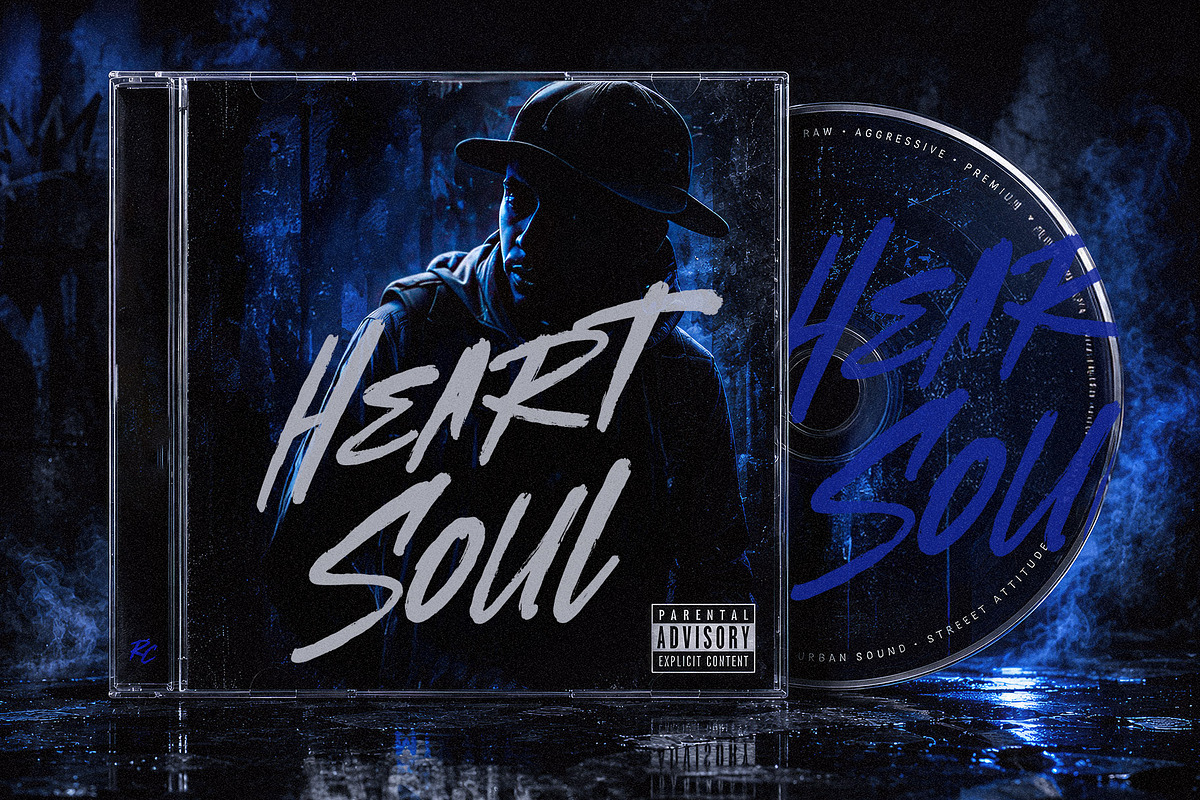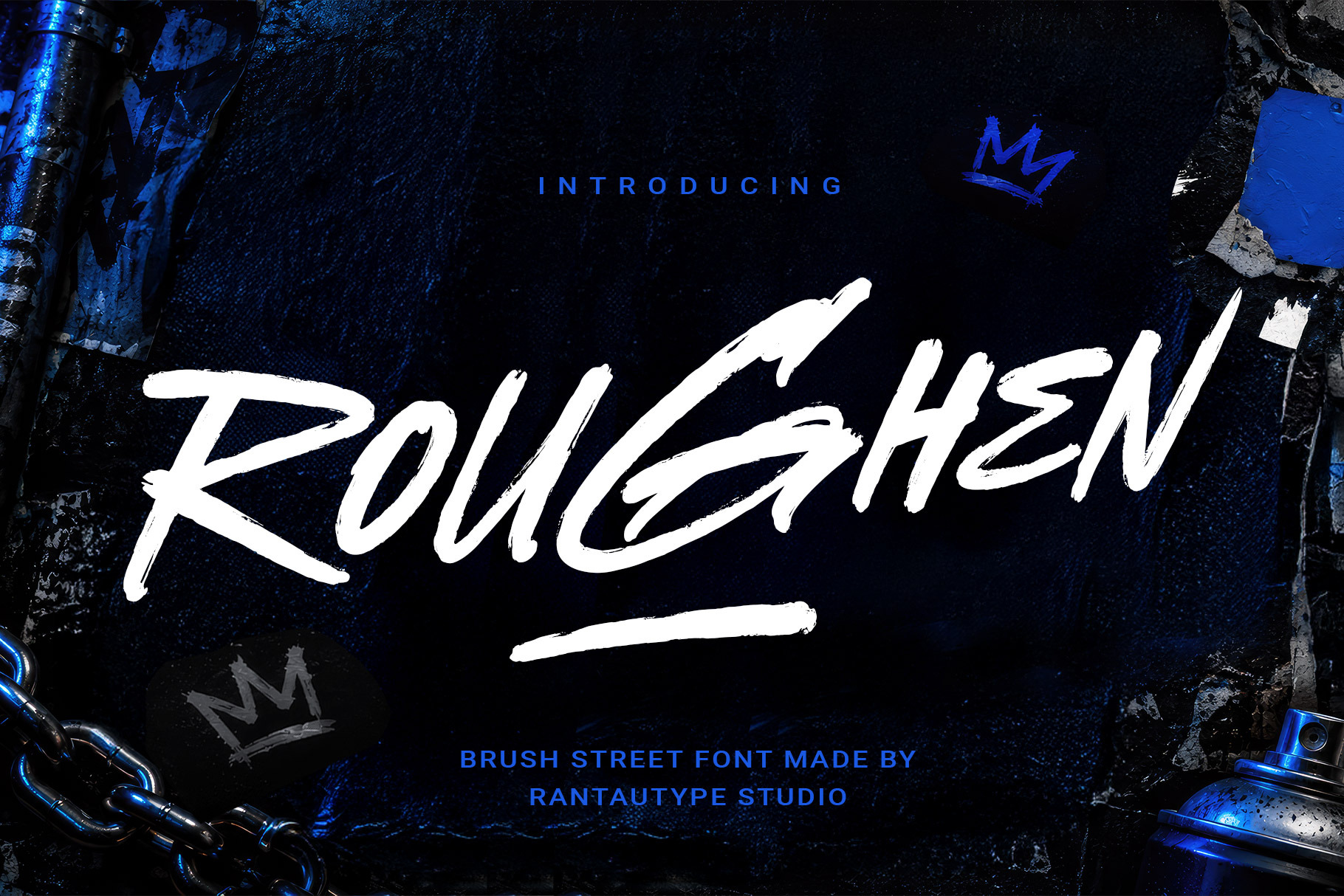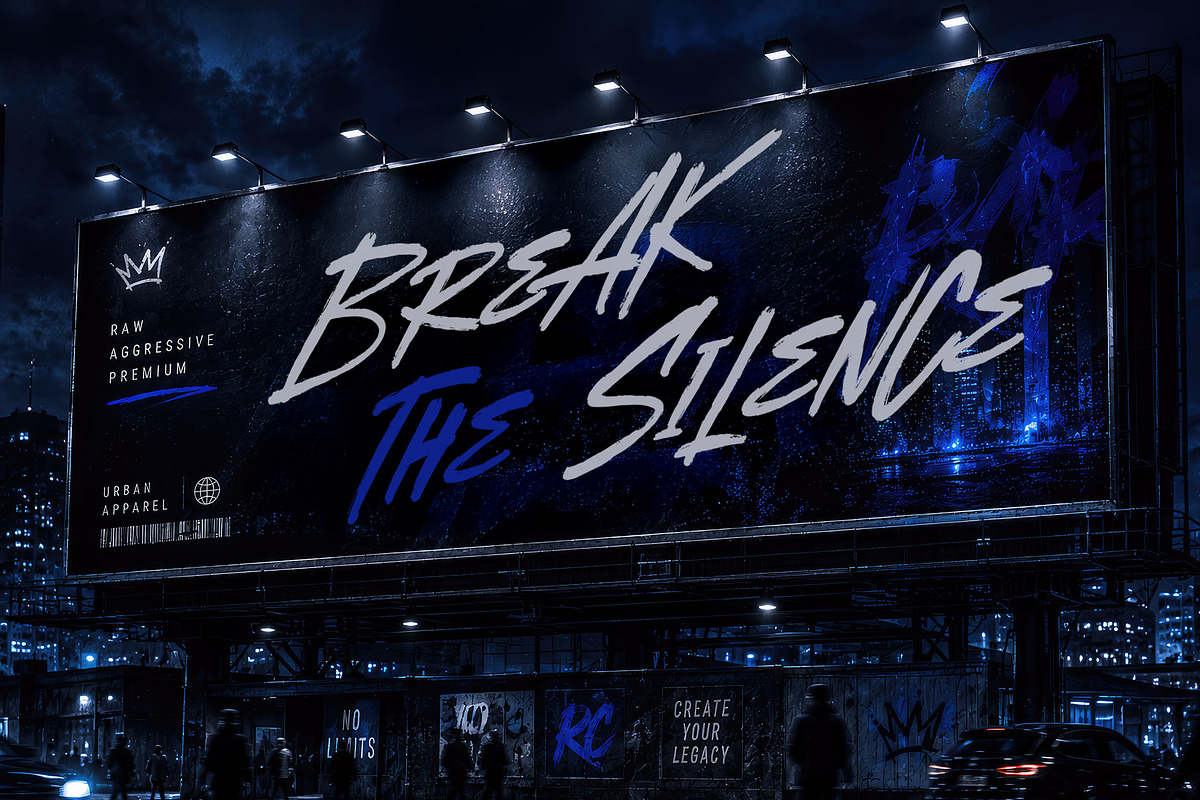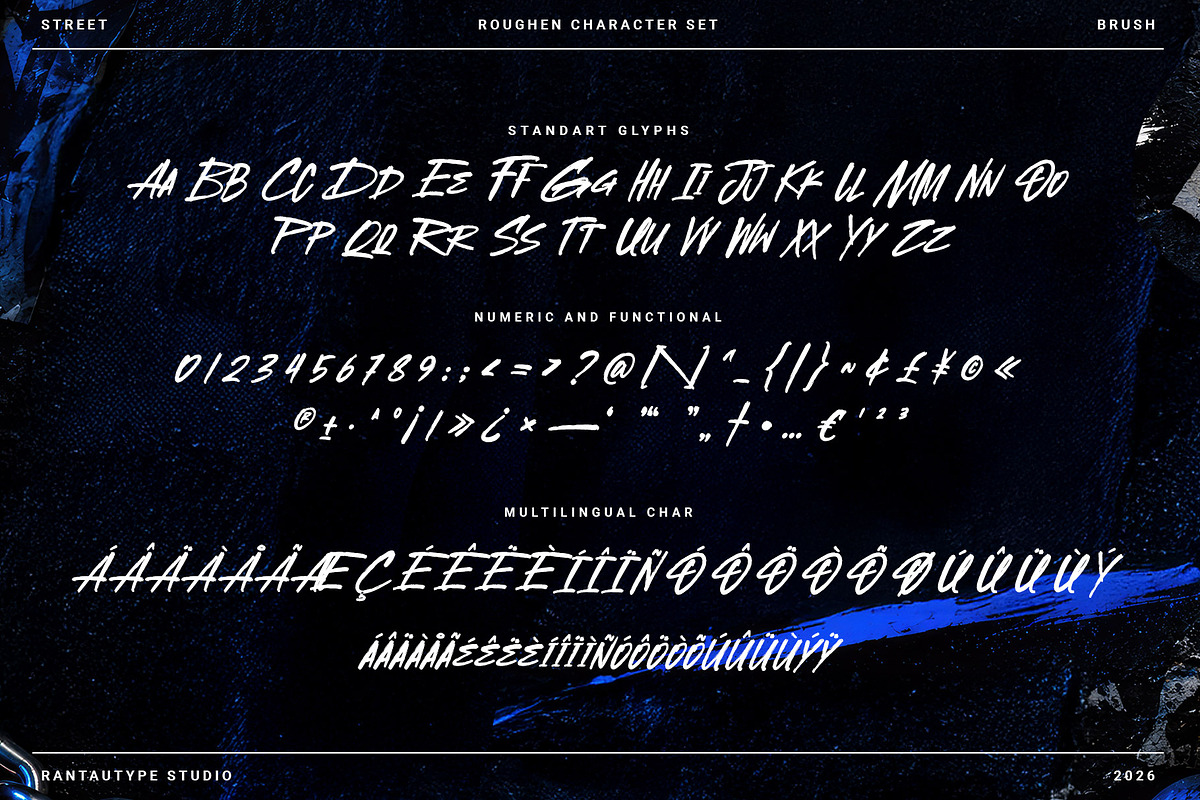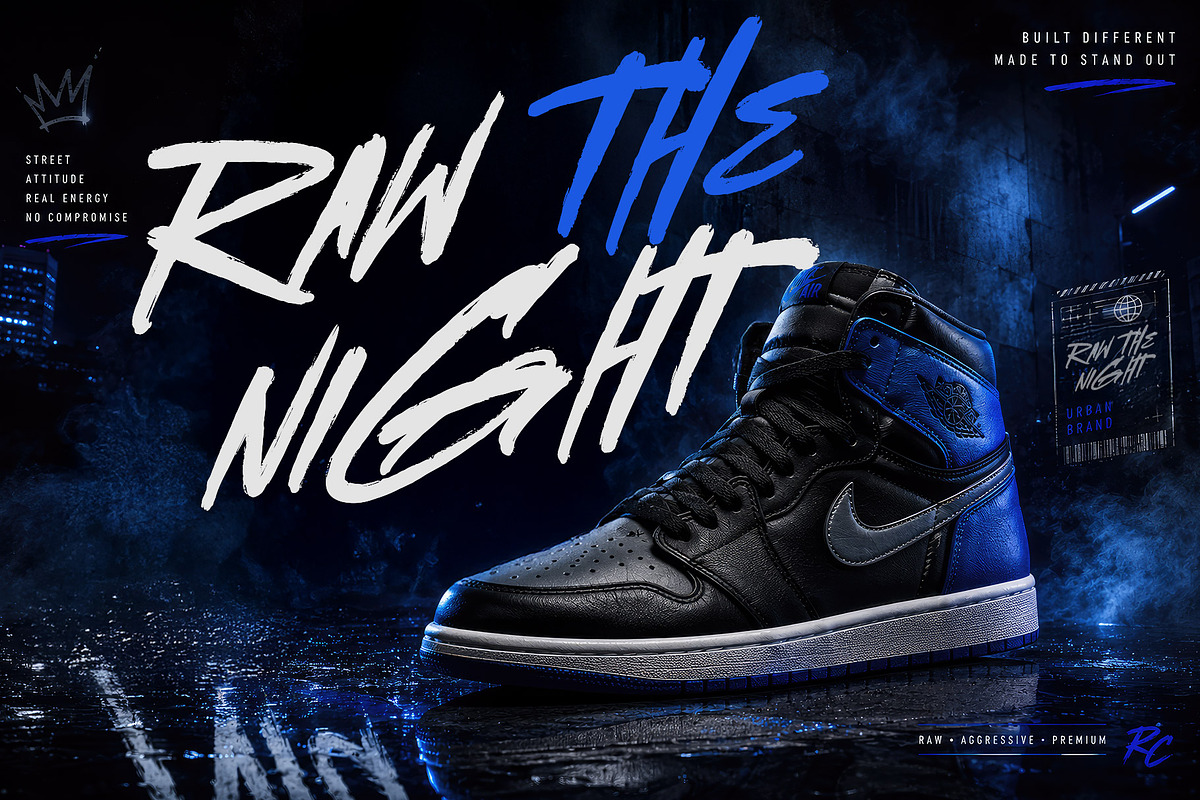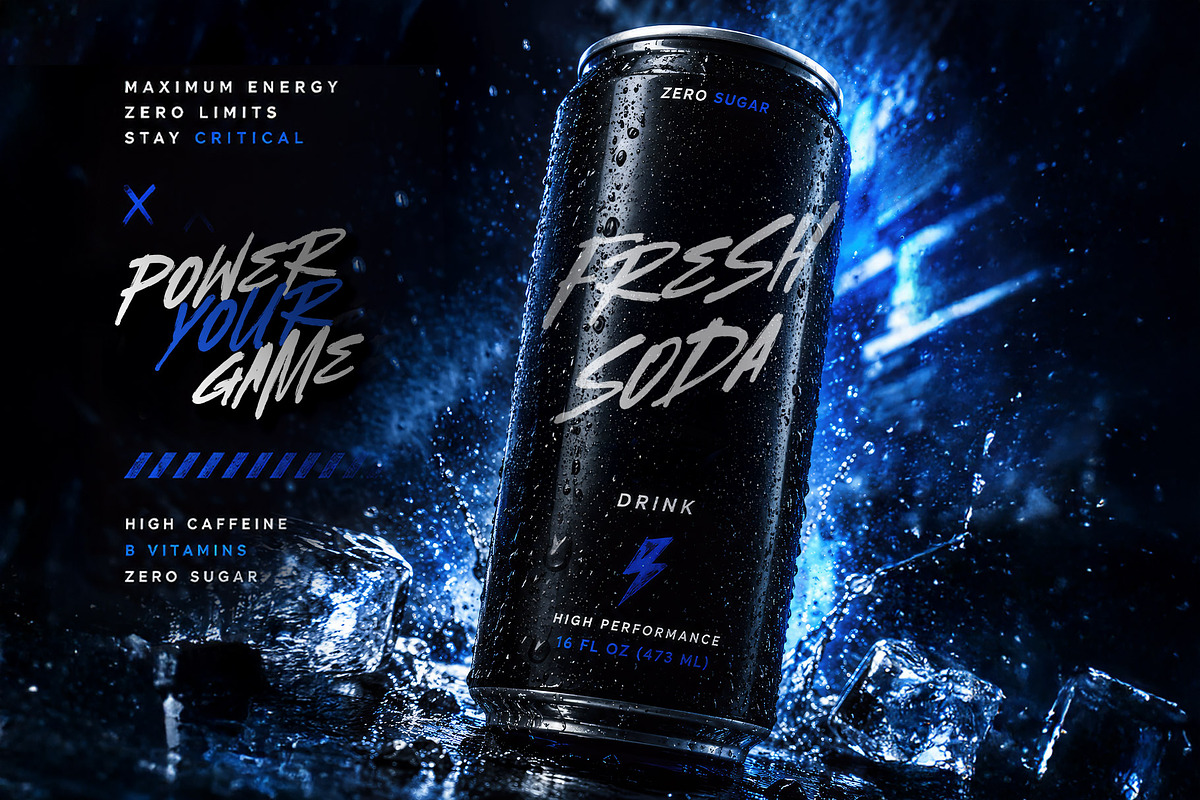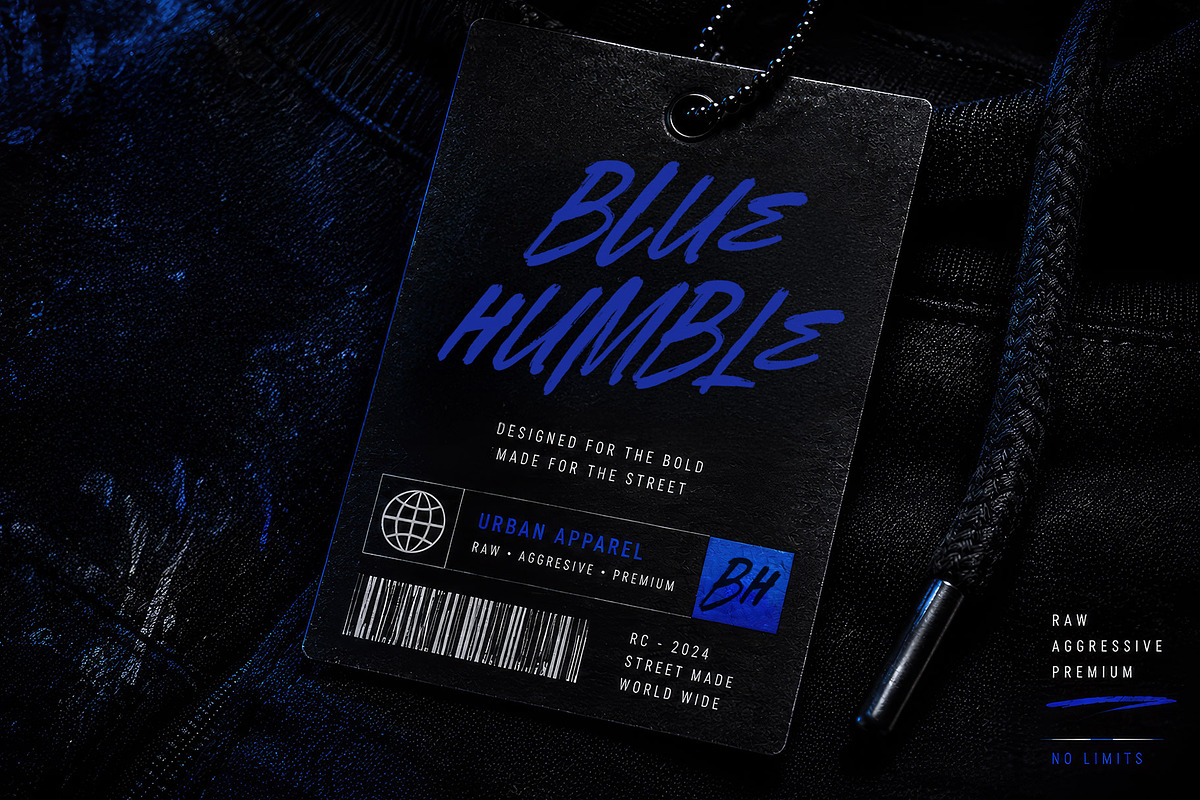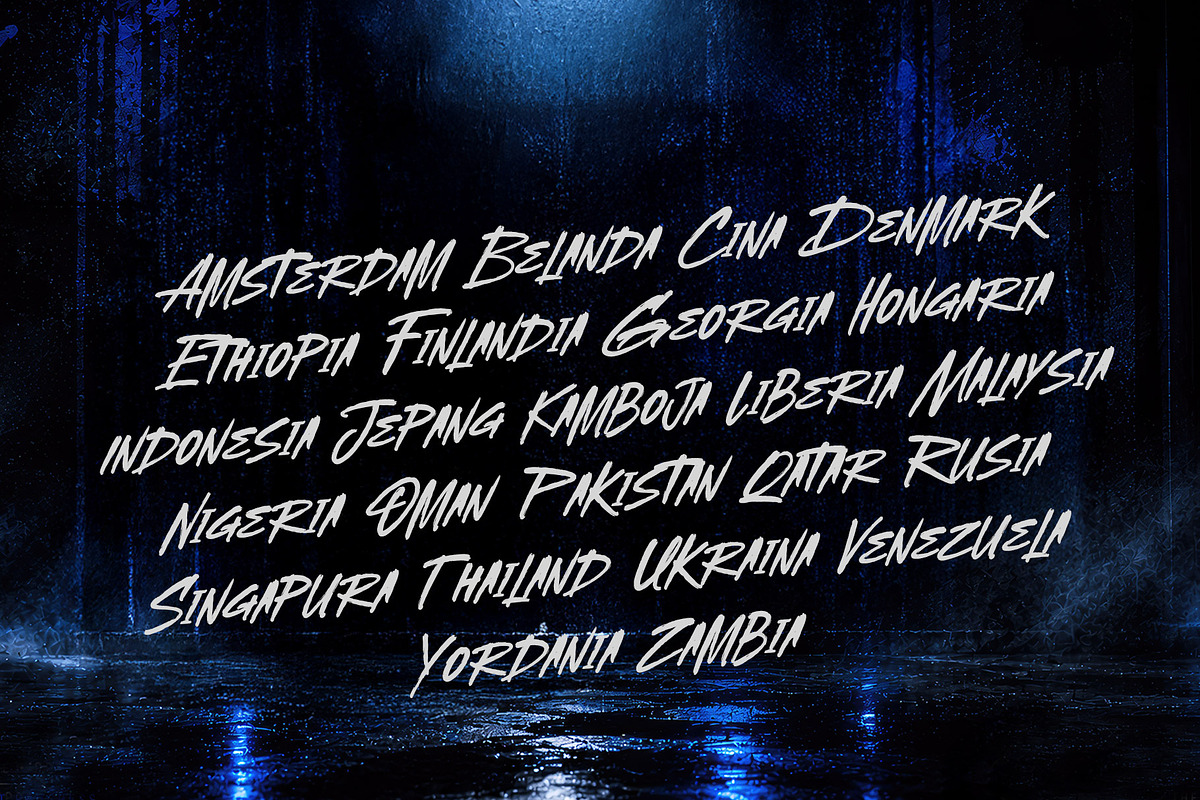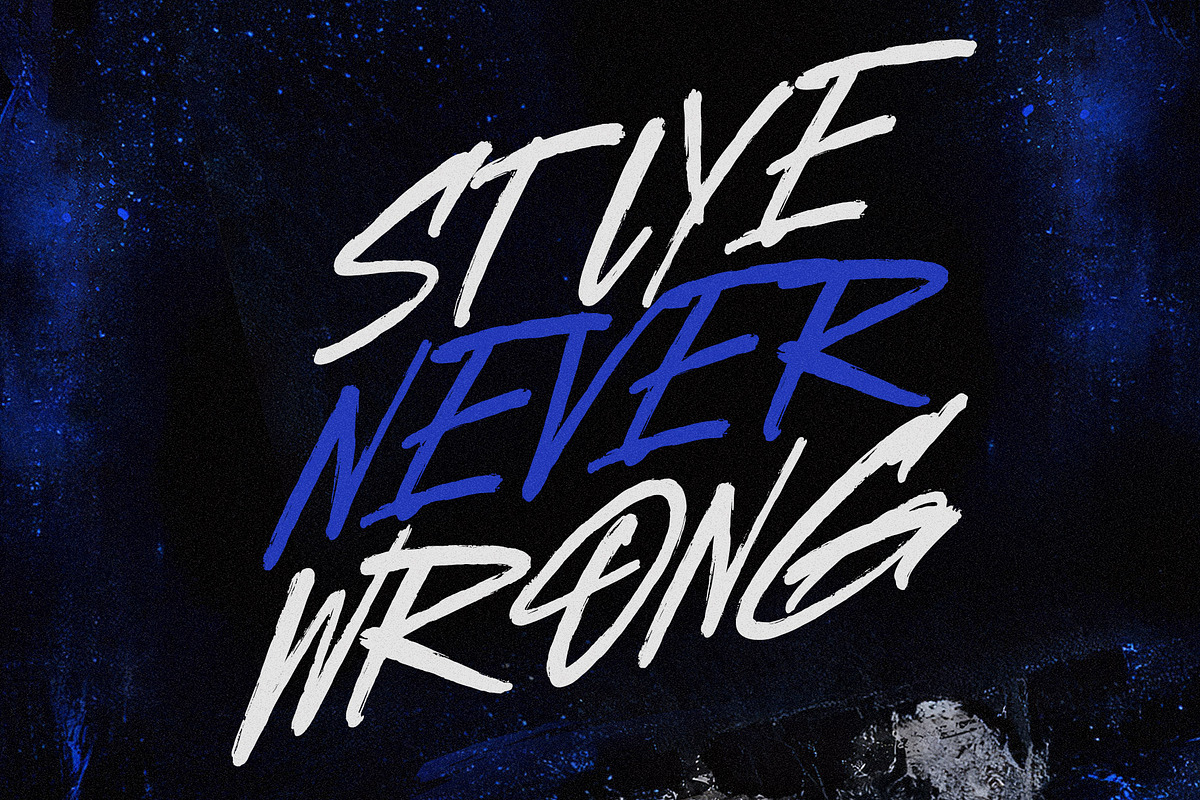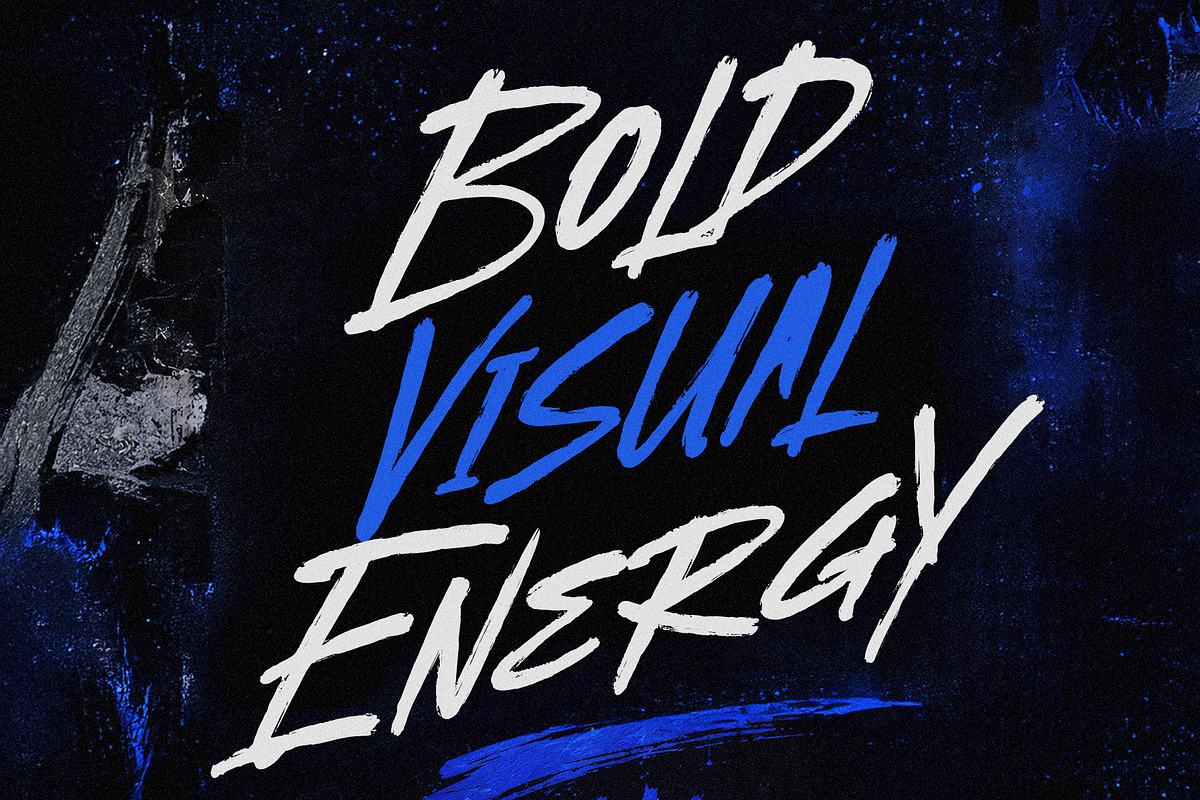
Roughen Brush Street Font
Roughen is brush font with carries an aggressive handcrafted brush personality with raw street momentum, uneven ink pressure, and high-energy movement. Roughen is a perfectly choice for any creative endeavor, creating, modern, lifestyle design such as logotype, title, cover, branding, display and magazine, social media posts, advertisements, printed quotes, product packaging, corporate brand, product designs, labels, photography, watermarks, special events and any other project with urban touch.
Standart Glyphs
Numberial and Functional
Alternate and ligature